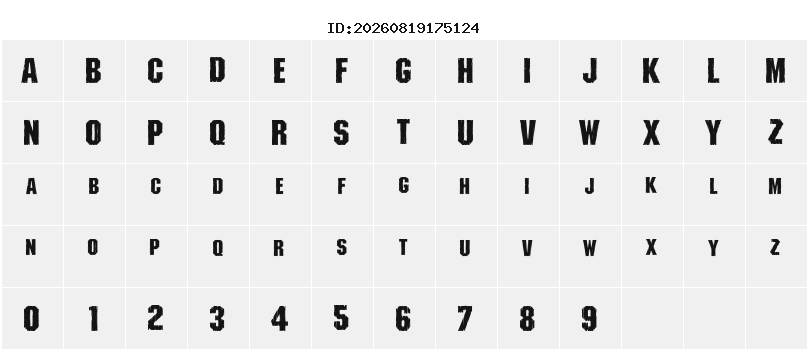
• Font Name: Shredded
• Full Font Name: Shredded
• Copyright: Shredded - Based on the PANTERA logo. P. Reid 1997.
About Shredded.ttf
Shredded.ttf is a modern, elegant sans-serif font designed for ultimate readability and visual harmony. Perfect for branding, headlines, web design, and print materials.